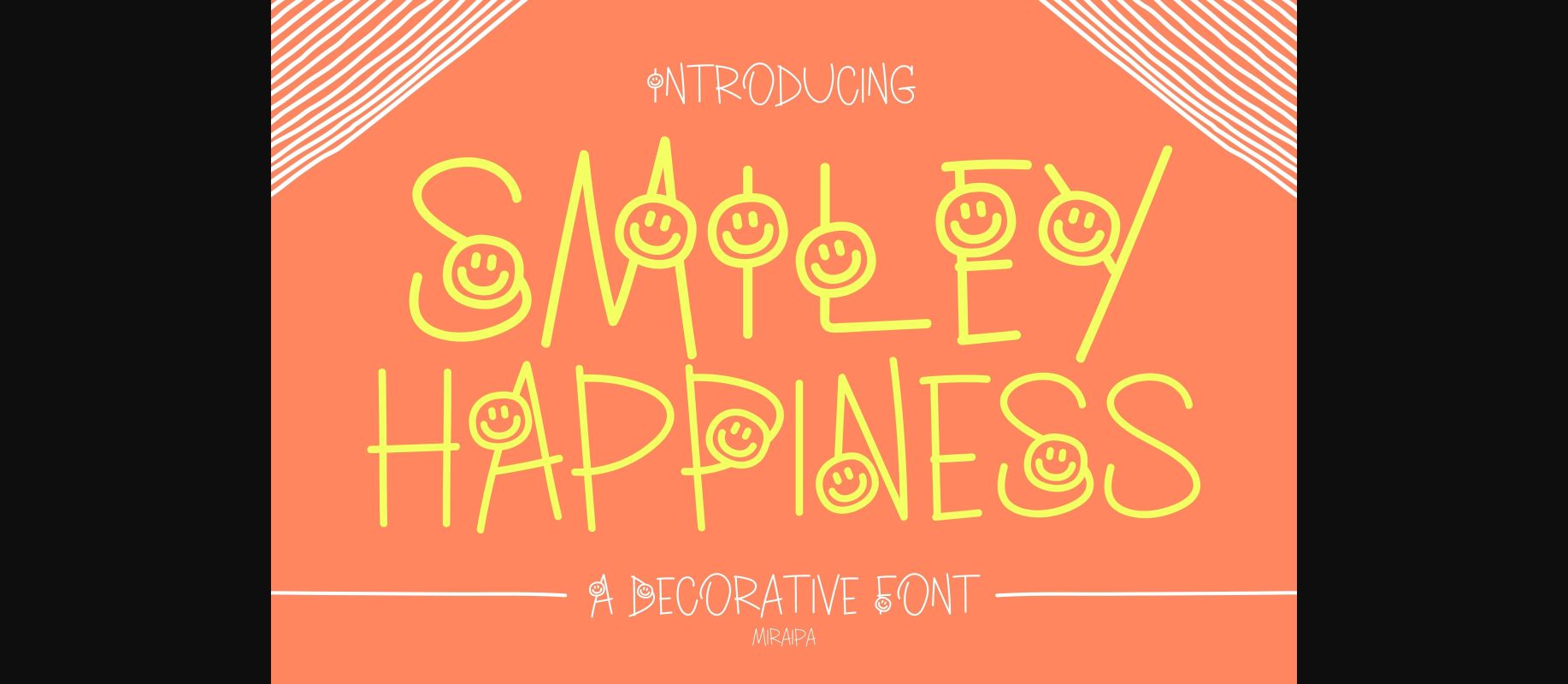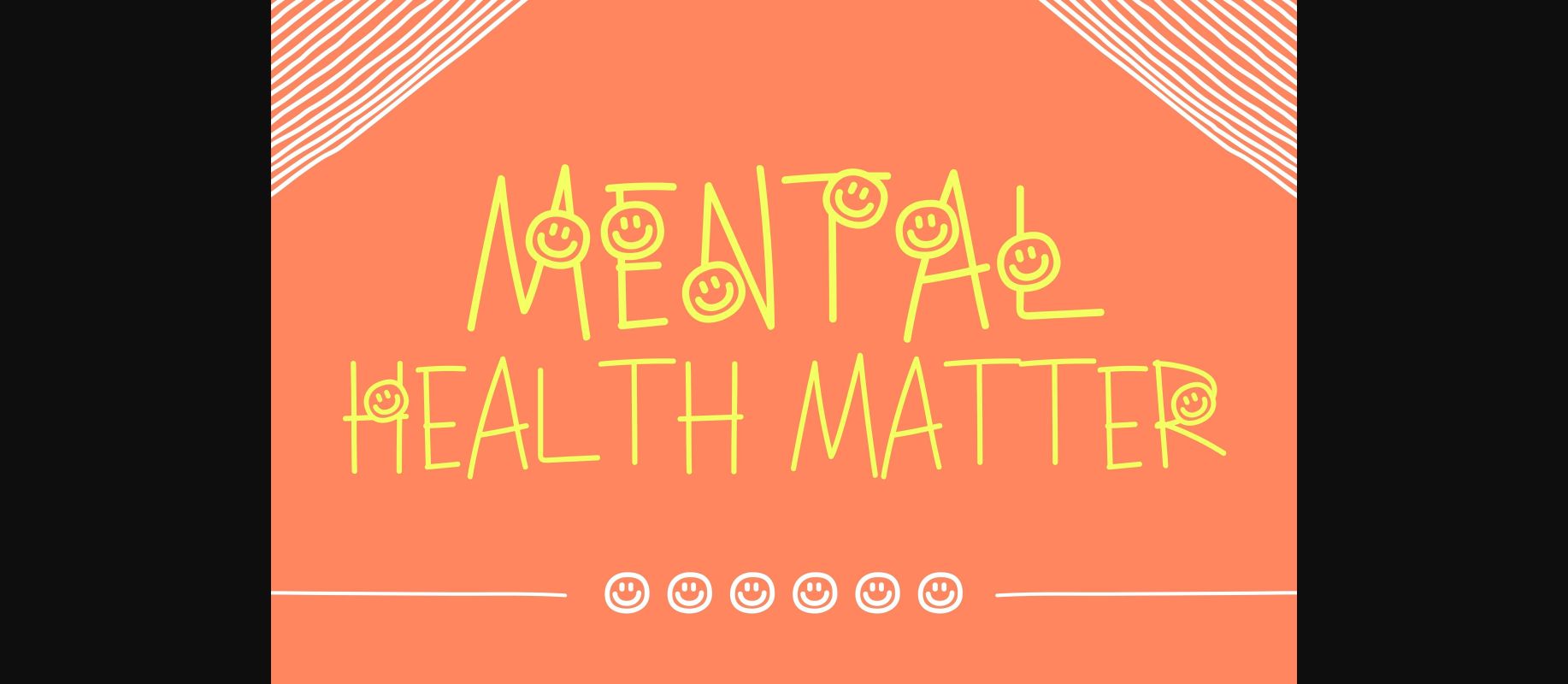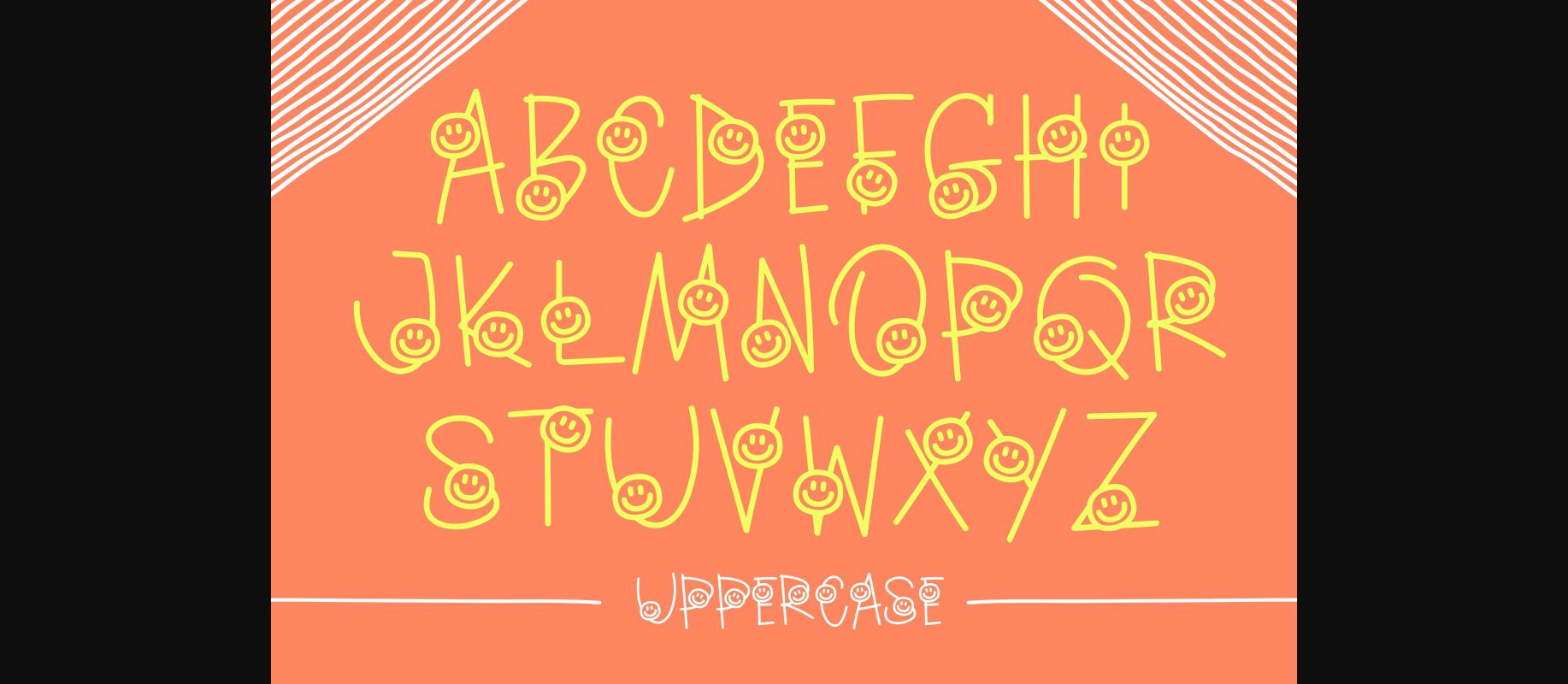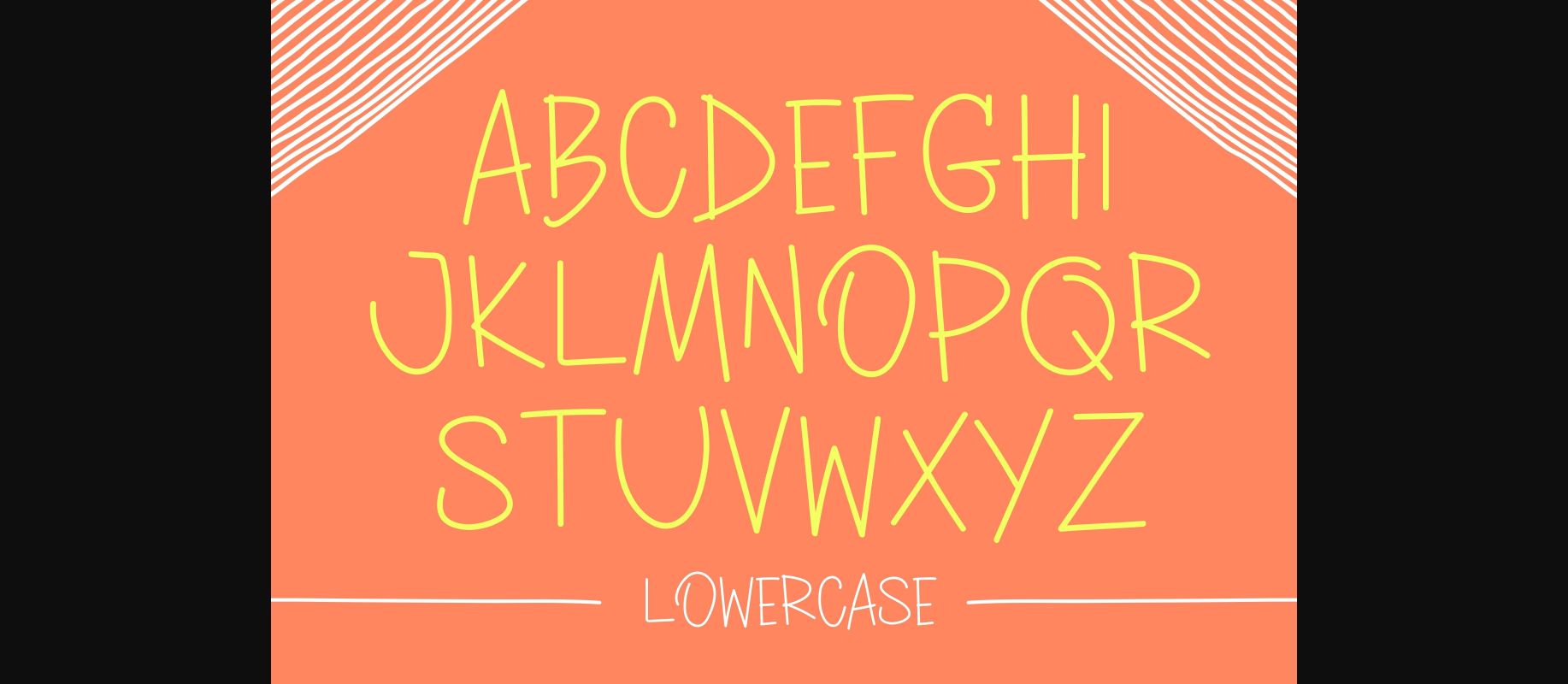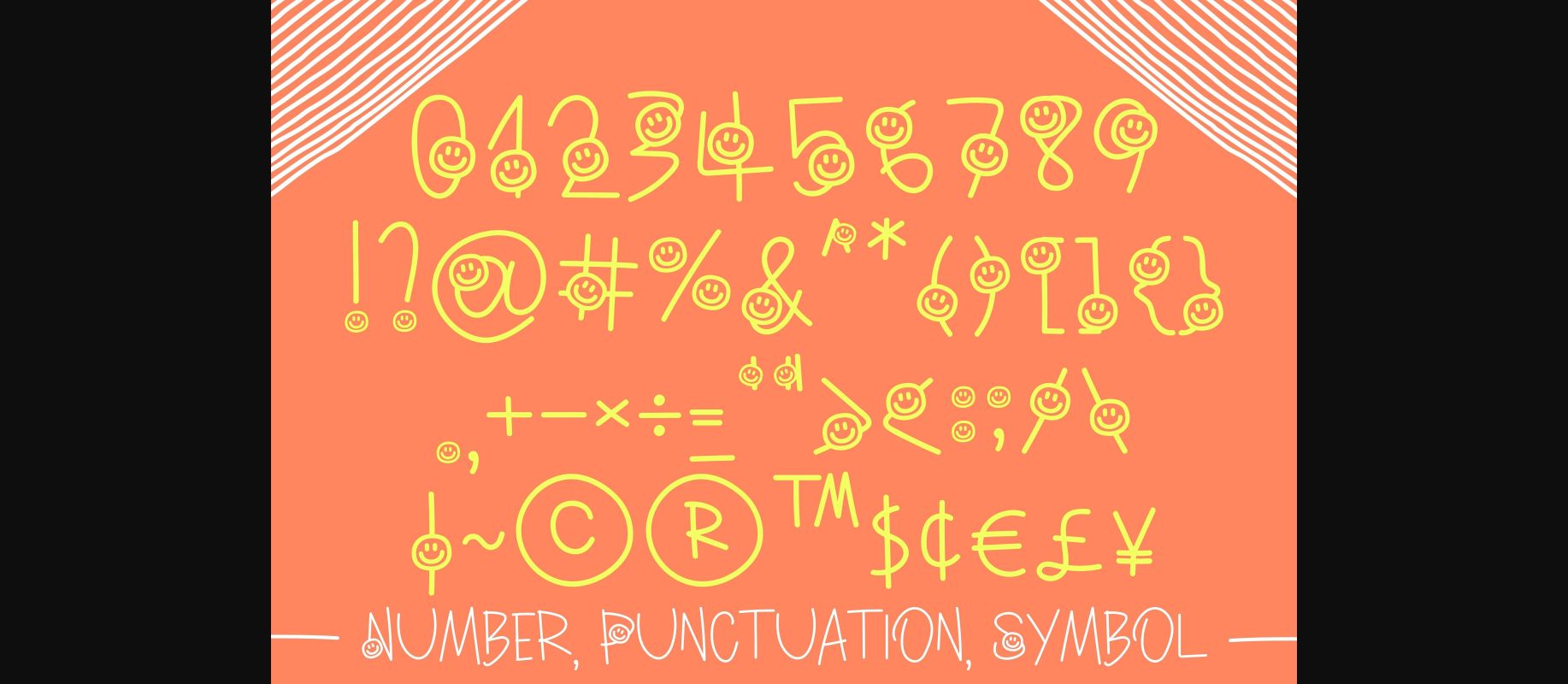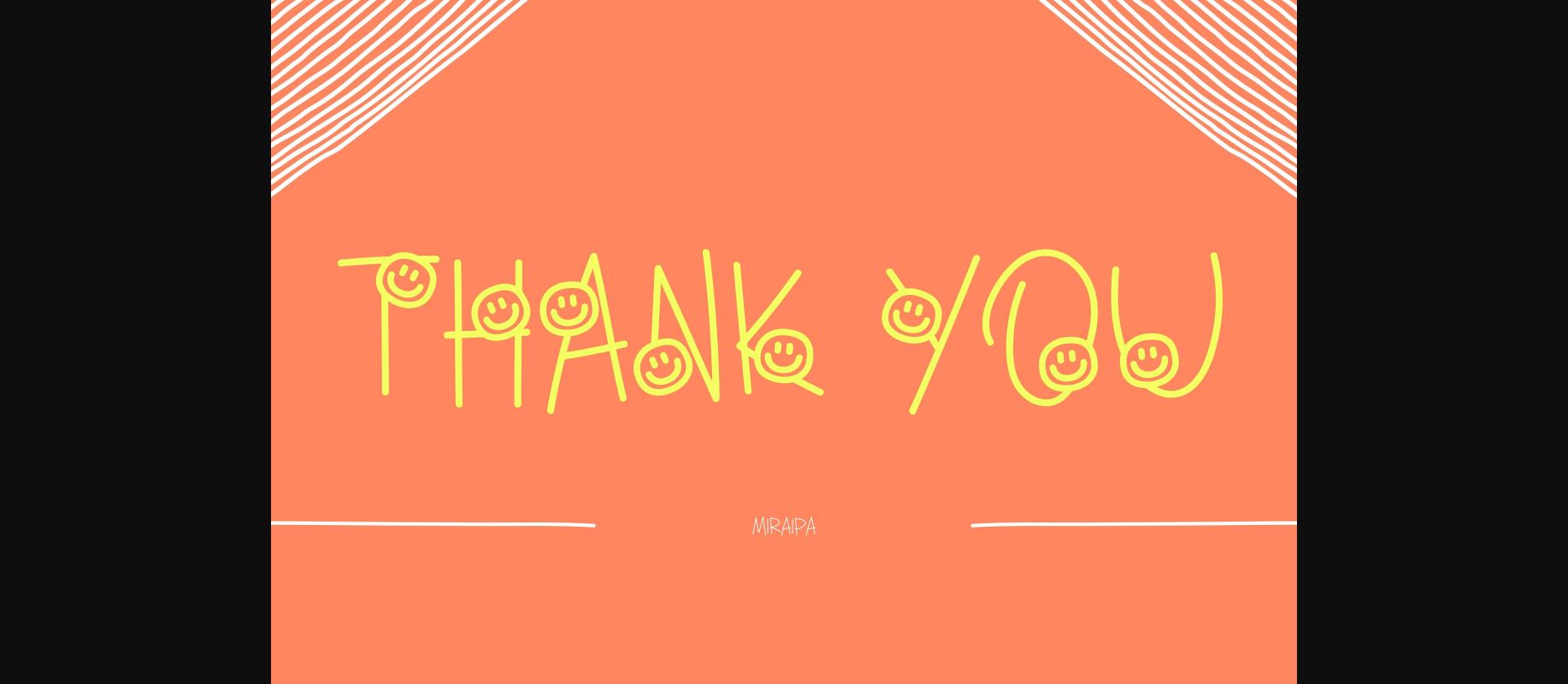
Decorative Fonts Smiley Happiness Font 0 143 FacebookTwitterPinterestWhatsApp 1 of 8 ... Smiley Happiness Font Poster 2... Smiley Happiness Font Poster 3... Smiley Happiness Font Poster 4... Smiley Happiness Font Poster 5... Smiley Happiness Font Poster 6... Smiley Happiness Font Poster 7... Smiley Happiness Font Poster 8... About Smiley Happiness Font Smiley Happiness is a lovely and cute decorative font. Add some joy and cheer to your projects with this adorable-looking font! DOWNLOAD NOW